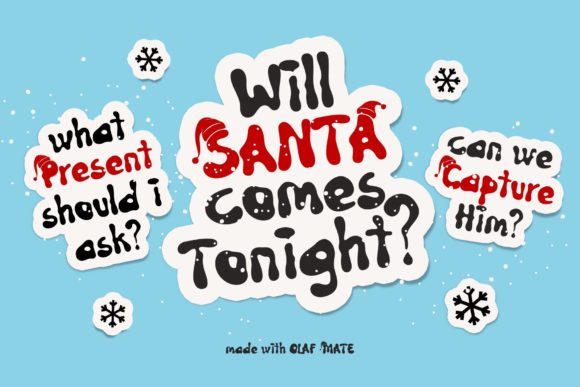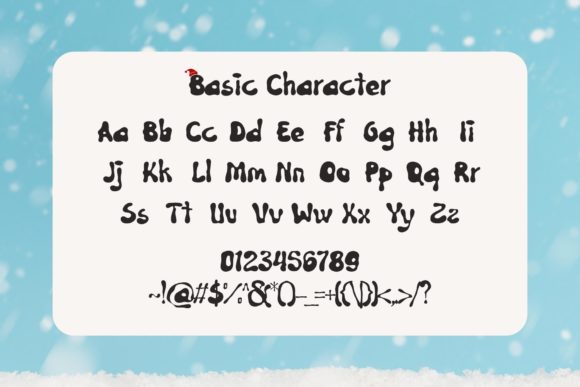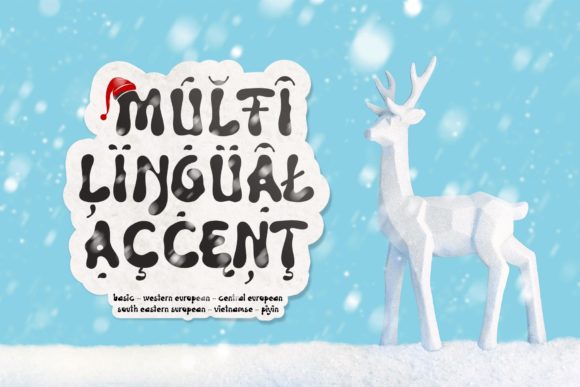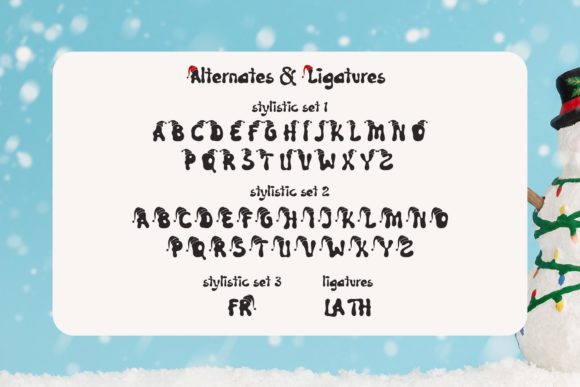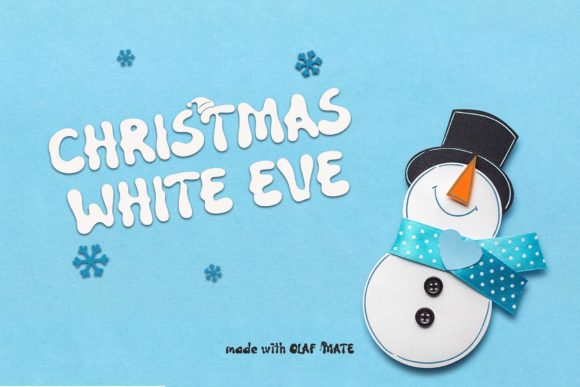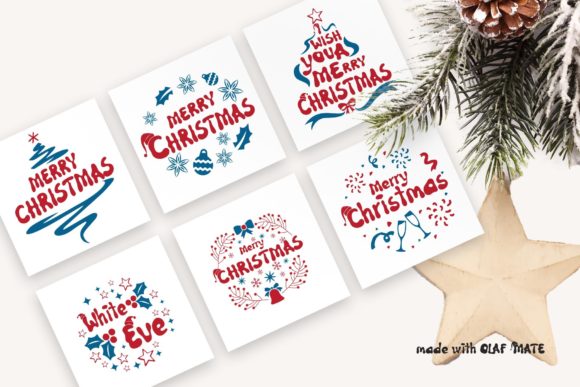
Introduction to Olaf Mate Font
Have you ever found yourself lost in the creative process, surrounded by scraps of paper, pencils, and a blank canvas waiting to be filled with life? It’s that moment when inspiration strikes, and the perfect font can make all the difference. For designers and creatives, finding the right font can be the key to unlocking a project’s true potential.
Enter Olaf Mate Font, a cool and casual display font that’s as playful as it is authentic. With its PUA encoding, accessing all glyphs and swashes is a breeze, making it a valuable design resource for any creative project. Whether you’re working on a school project or a children’s activity, Olaf Mate Font is the perfect choice for bringing your vision to life with a high-quality, transparent background.
Key Features of Olaf Mate Font
- High-quality design resource with a unique, playful style perfect for creative projects.
- Includes a transparent background, allowing for easy customization and seamless integration into various designs.
- Features a large character set, including uppercase and lowercase letters, numbers, and special characters.
- Designed with a high resolution of 300 DPI, making it suitable for use in various mediums, from digital screens to print materials.
- Perfect for designers looking to add a touch of whimsy and fun to their creative projects, from logos and branding to illustrations and graphics.
Honest Review: Olaf Mate Font
What works well about the Olaf Mate Font is its unique and modern aesthetic. The font is highly versatile and can be used for a variety of design projects, from logos to digital signage. The font also features a transparent background, making it easy to layer and customize.
- ✨ Unique and modern aesthetic
- ✨ Highly versatile
However, I do have a few reservations about the Olaf Mate Font. ⚠️ The font is limited to a single weight, which may not be suitable for projects that require multiple font weights.
Overall, I think the Olaf Mate Font is a solid addition to any designer’s toolkit. While it may have some limitations, its unique aesthetic and versatility make it a valuable design resource. I’d recommend giving it a try for your next creative project!
Tips for Getting the Most Out of Olaf Mate Font
For optimal results, use the Olaf Mate Font in conjunction with other high-quality design resources. Experiment with different font sizes, colors, and styles to create a unique and eye-catching design. Consider using the font on a transparent background to create a sense of depth and dimensionality.
The Olaf Mate Font is a versatile design resource that can be used in a variety of creative projects, including digital art, graphic design, and print materials. Some common use cases include:
- Digital invitations and event materials
- Graphic novels and comics
- Print materials, such as business cards and brochures